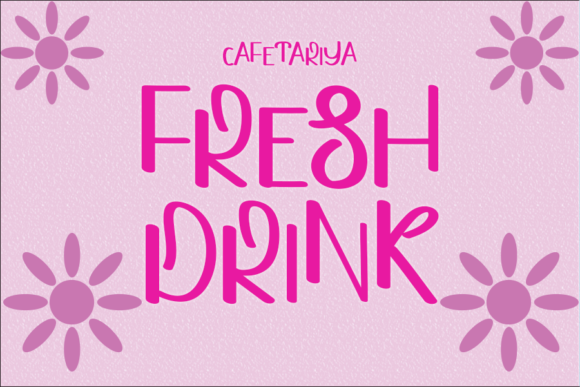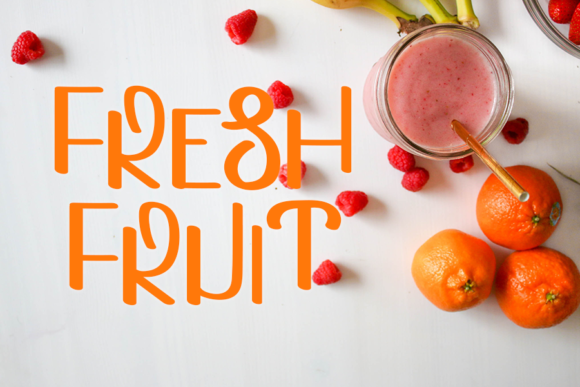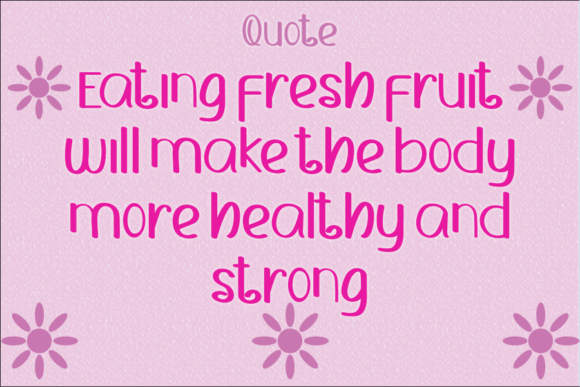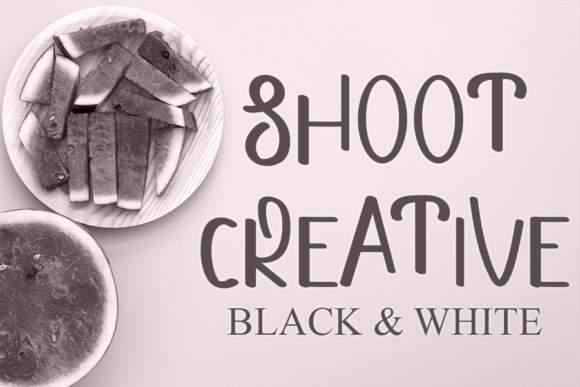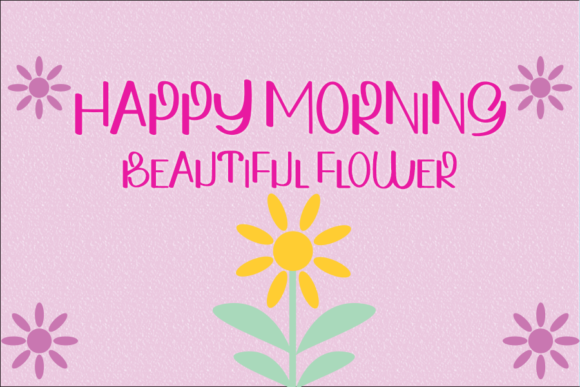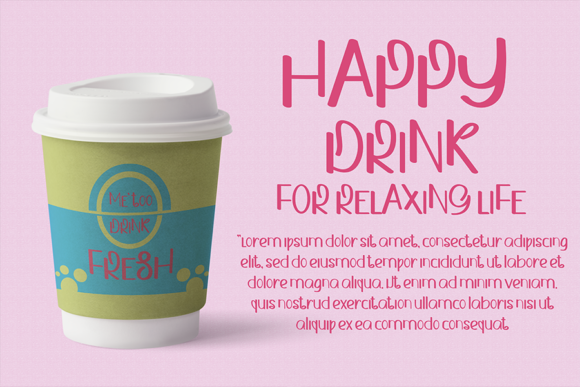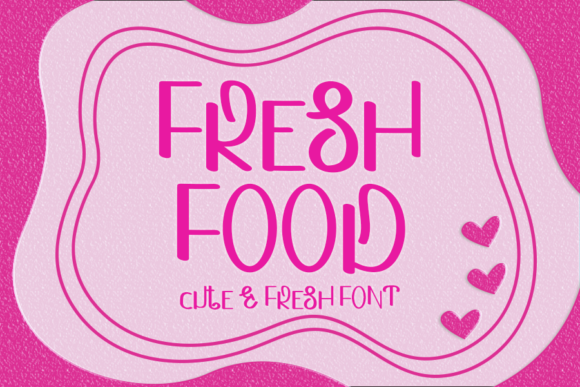
Introducing Fresh Food Font: The Perfect Addition to Your Design and Crafting Projects
Are you tired of using the same old fonts in your design and crafting projects? Look no further than Fresh Food Font, a bouncy and friendly display font that’s sure to make your creations stand out. With its unique playfulness and enchanting charm, Fresh Food Font is the perfect addition to any project that needs a little extra flair.
What is Fresh Food Font?
Fresh Food Font is a display font that’s designed to add a touch of whimsy and fun to your designs. Its bouncy and friendly style makes it perfect for use in a variety of projects, from crafting and scrapbooking to branding and advertising. Whether you’re looking to create a standout logo, add some personality to your social media graphics, or simply want to add a little extra flair to your crafting projects, Fresh Food Font is the perfect choice.
Key Features of Fresh Food Font
- Bouncy and Friendly Style: Fresh Food Font has a unique and playful style that’s sure to grab attention.
- Enchanting Charm: This font has a certain charm that’s hard to resist, making it perfect for use in projects that need a little extra personality.
- Unique Playfulness: Fresh Food Font is designed to be fun and playful, making it perfect for use in crafting and design projects.
- High-Quality Design: This font is designed with high-quality graphics in mind, ensuring that it looks great in any project.
How to Use Fresh Food Font in Your Projects
Fresh Food Font is incredibly versatile and can be used in a variety of projects, including:
- Crafting Projects: Add a touch of personality to your crafting projects, such as scrapbooking, card making, and DIY gifts.
- Branding and Advertising: Use Fresh Food Font to create standout logos, social media graphics, and advertisements.
- Digital Design: Use this font in your digital designs, such as website headers, blog posts, and social media graphics.
- Paper Crafting: Add a touch of whimsy to your paper crafting projects, such as greeting cards, invitations, and paper flowers.
Tips and Tricks for Using Fresh Food Font
Here are a few tips and tricks for using Fresh Food Font in your projects:
- Use it as a Headline Font: Fresh Food Font is perfect for use as a headline font, adding a touch of personality and whimsy to your designs.
- Pair it with Other Fonts: Experiment with pairing Fresh Food Font with other fonts to create a unique and interesting look.
- Use it in Combination with Images: Use Fresh Food Font in combination with images to add a touch of personality and whimsy to your designs.
- Experiment with Colors: Don’t be afraid to experiment with different colors and color combinations to add an extra touch of personality to your designs.
Fresh Food Font is a unique and playful display font that’s perfect for adding a touch of personality and whimsy to your design and crafting projects. With its bouncy and friendly style, enchanting charm, and high-quality design, this font is sure to make your creations stand out. Whether you’re a designer, crafter, or simply someone who loves to get creative, Fresh Food Font is a must-have addition to your font collection.